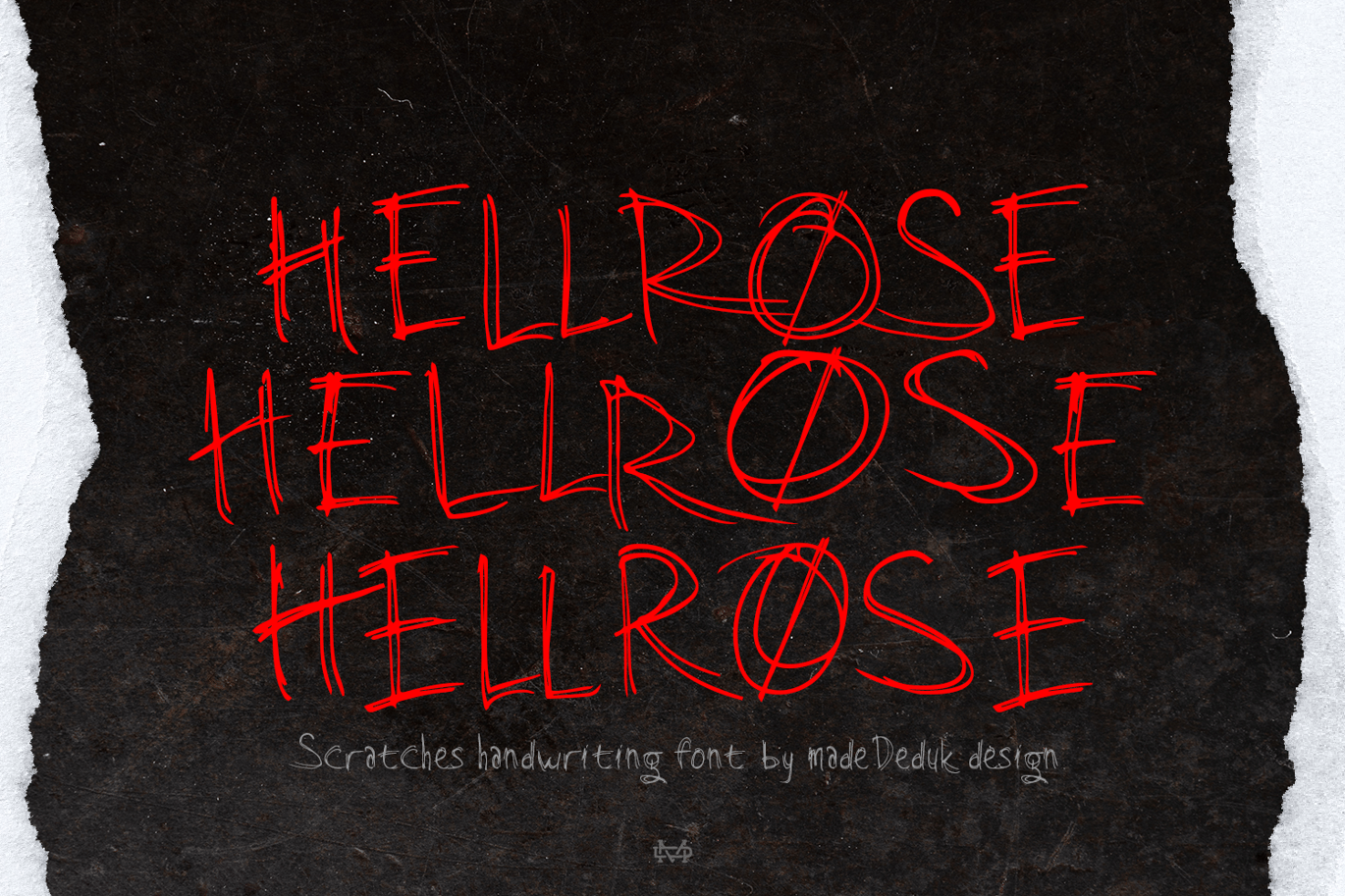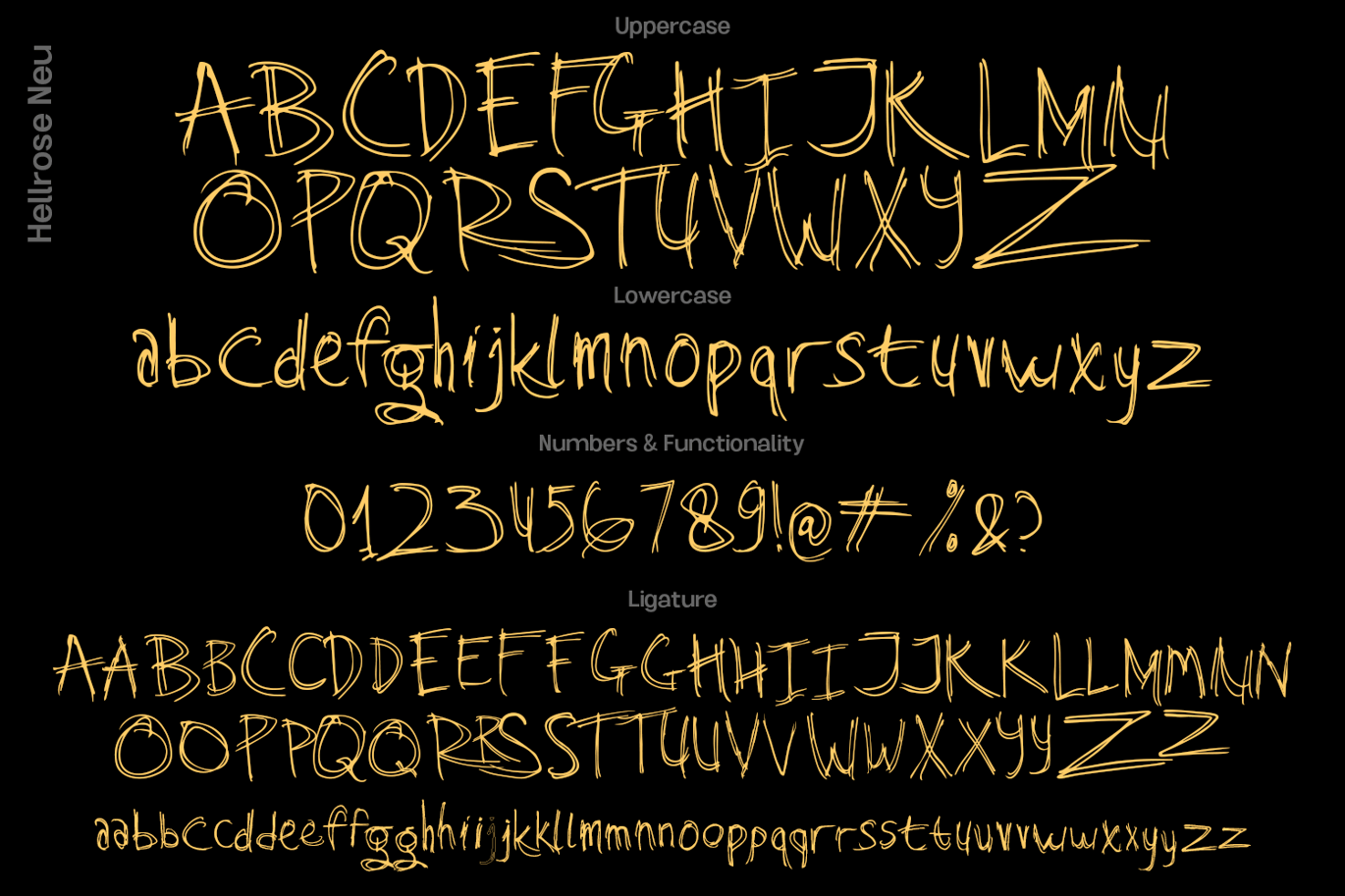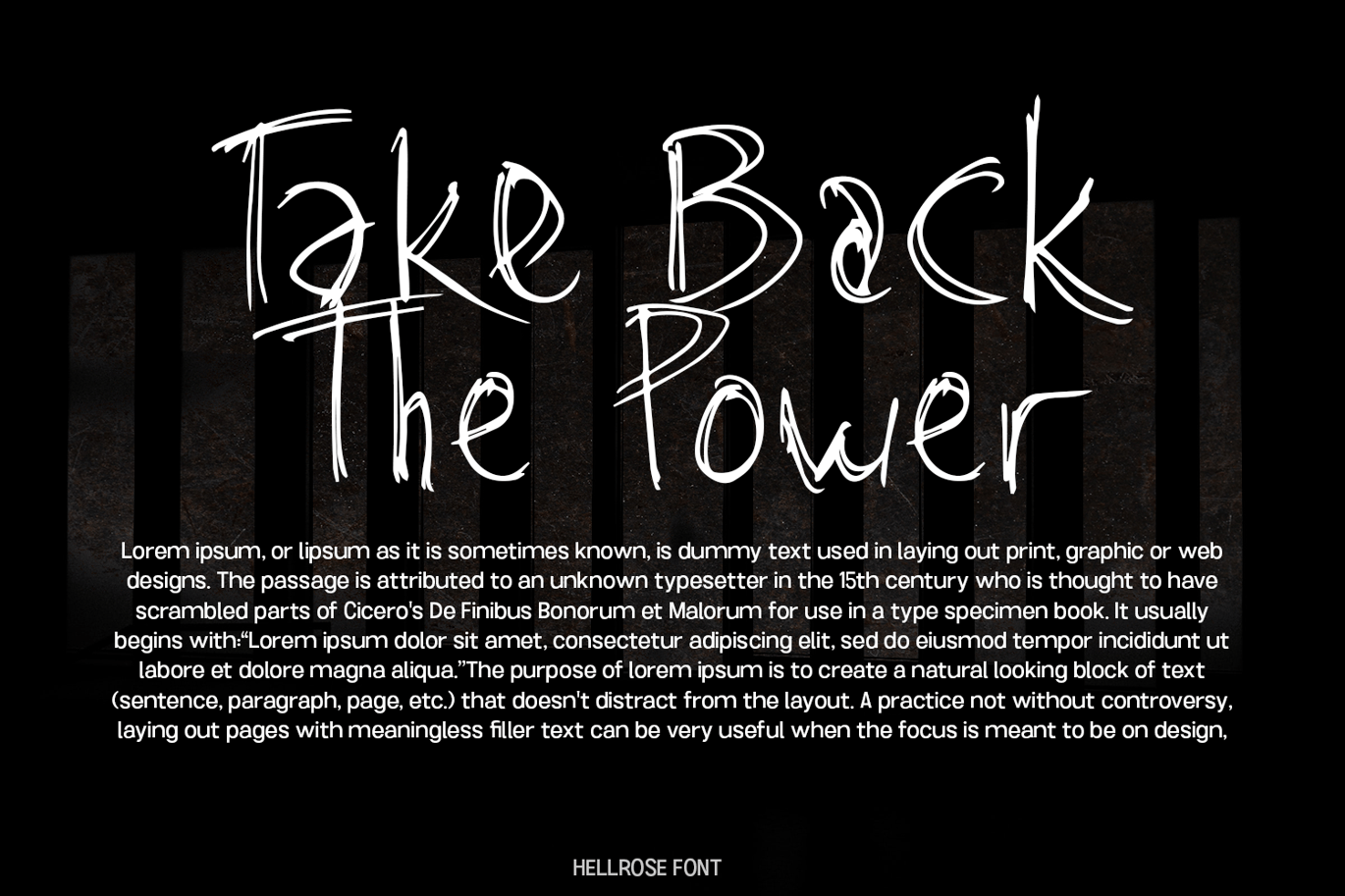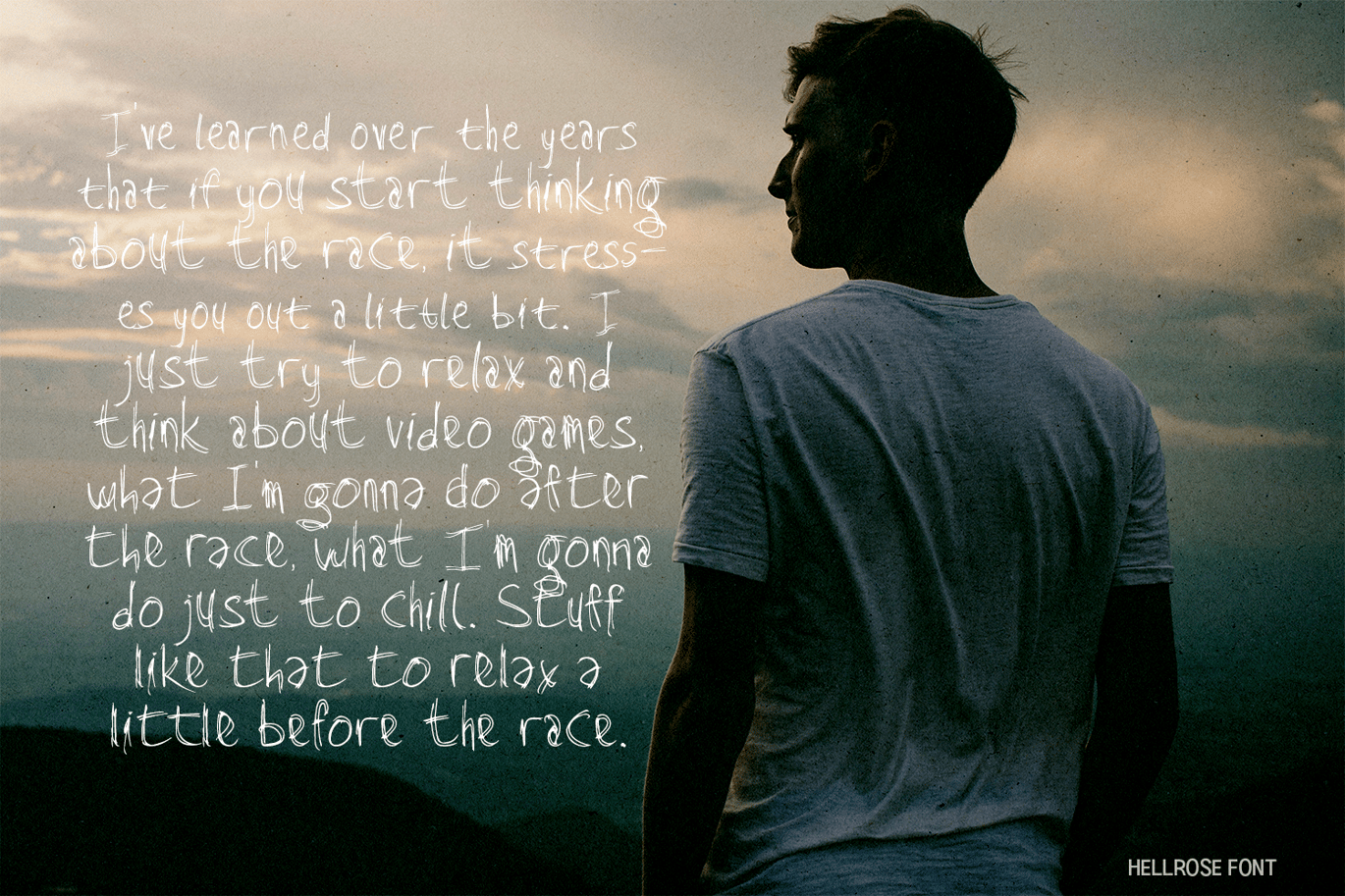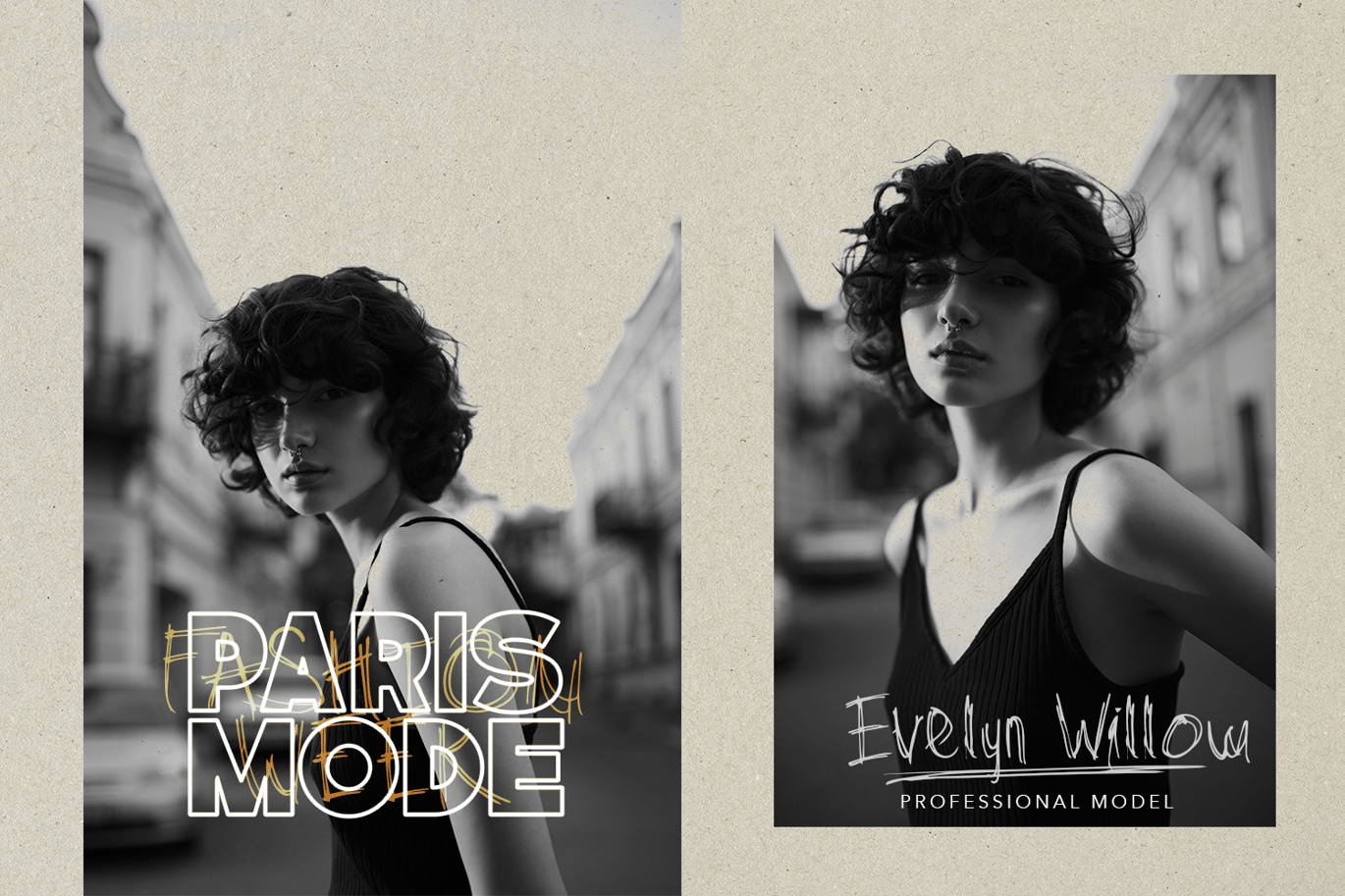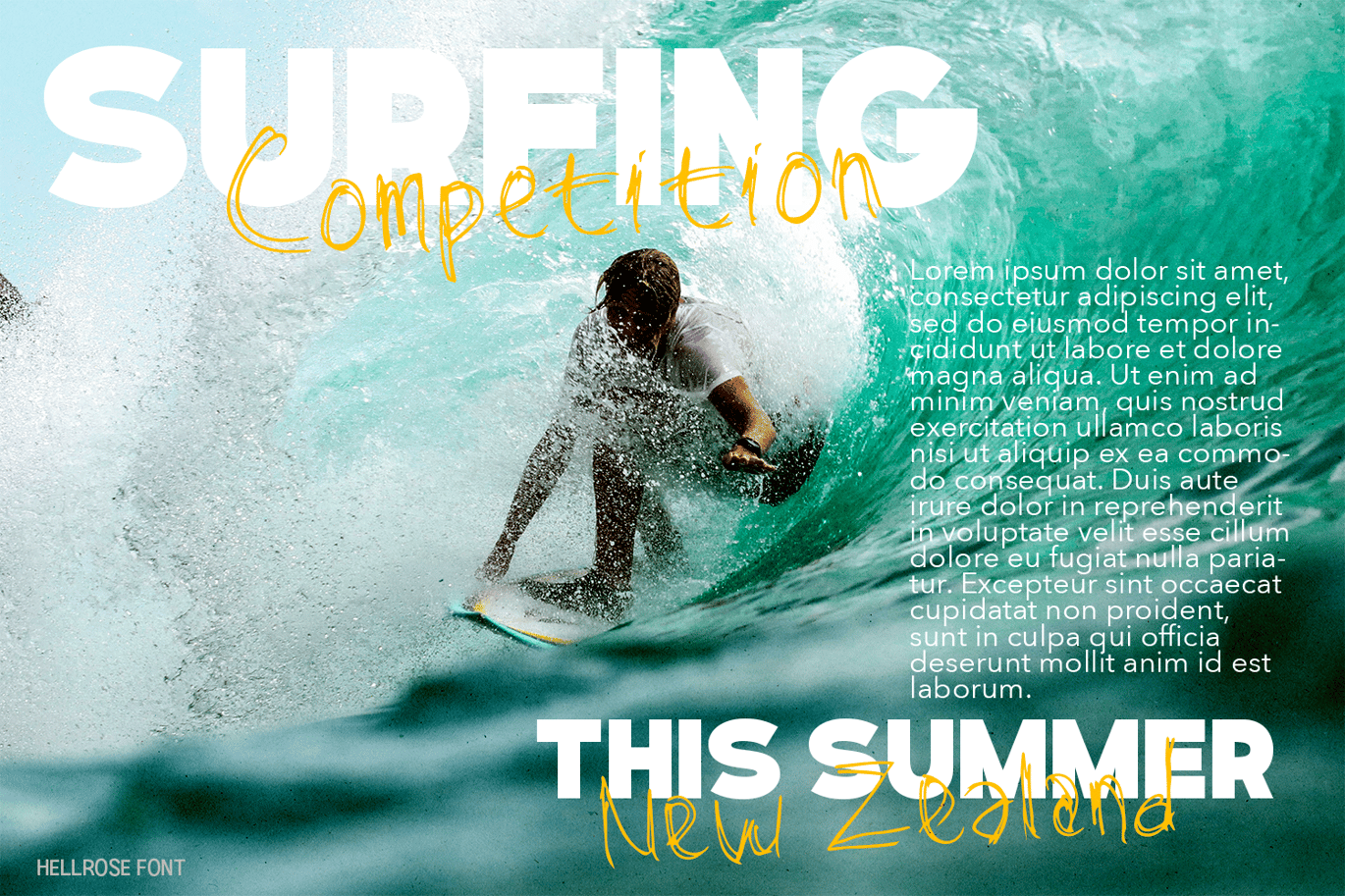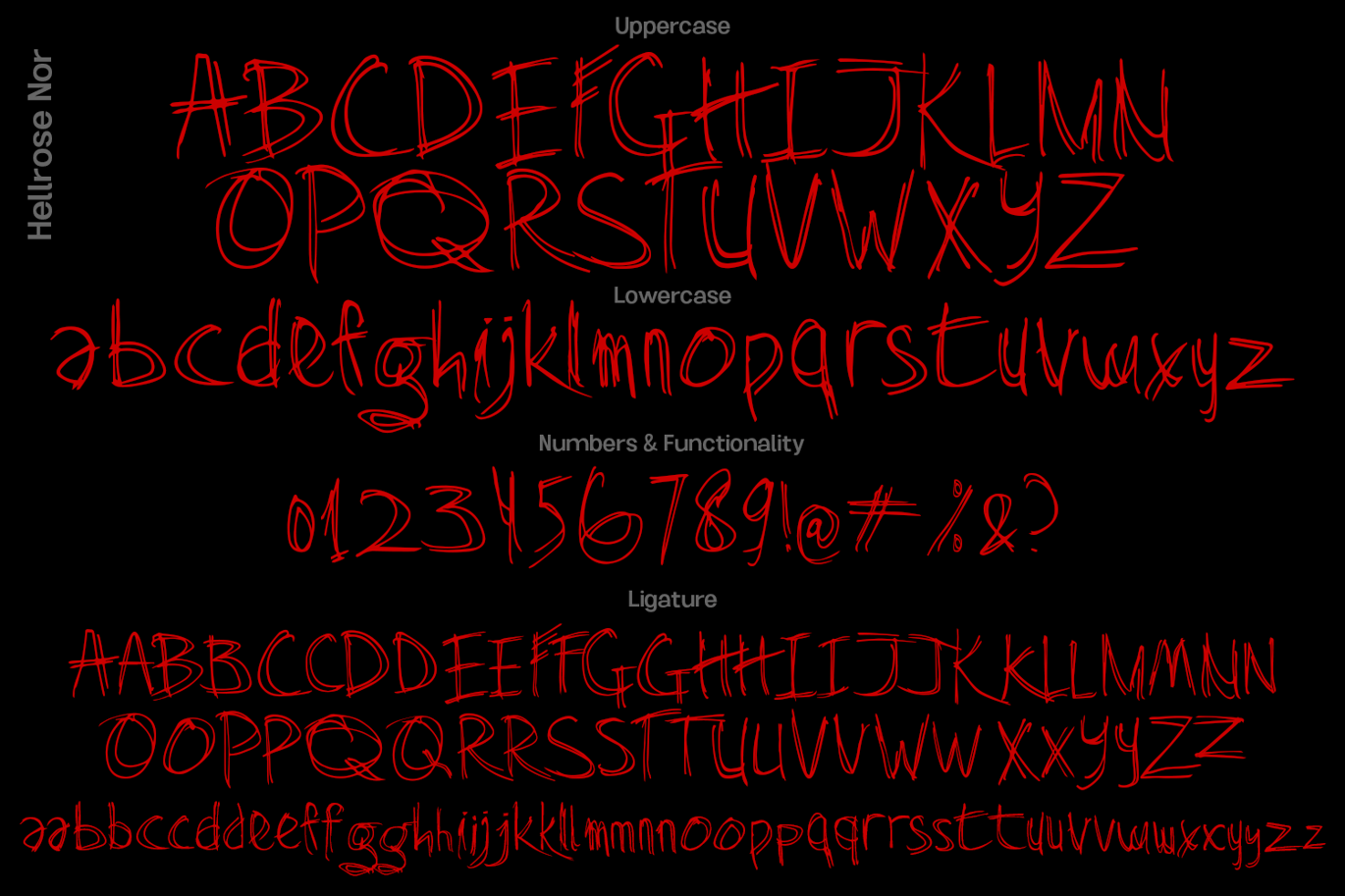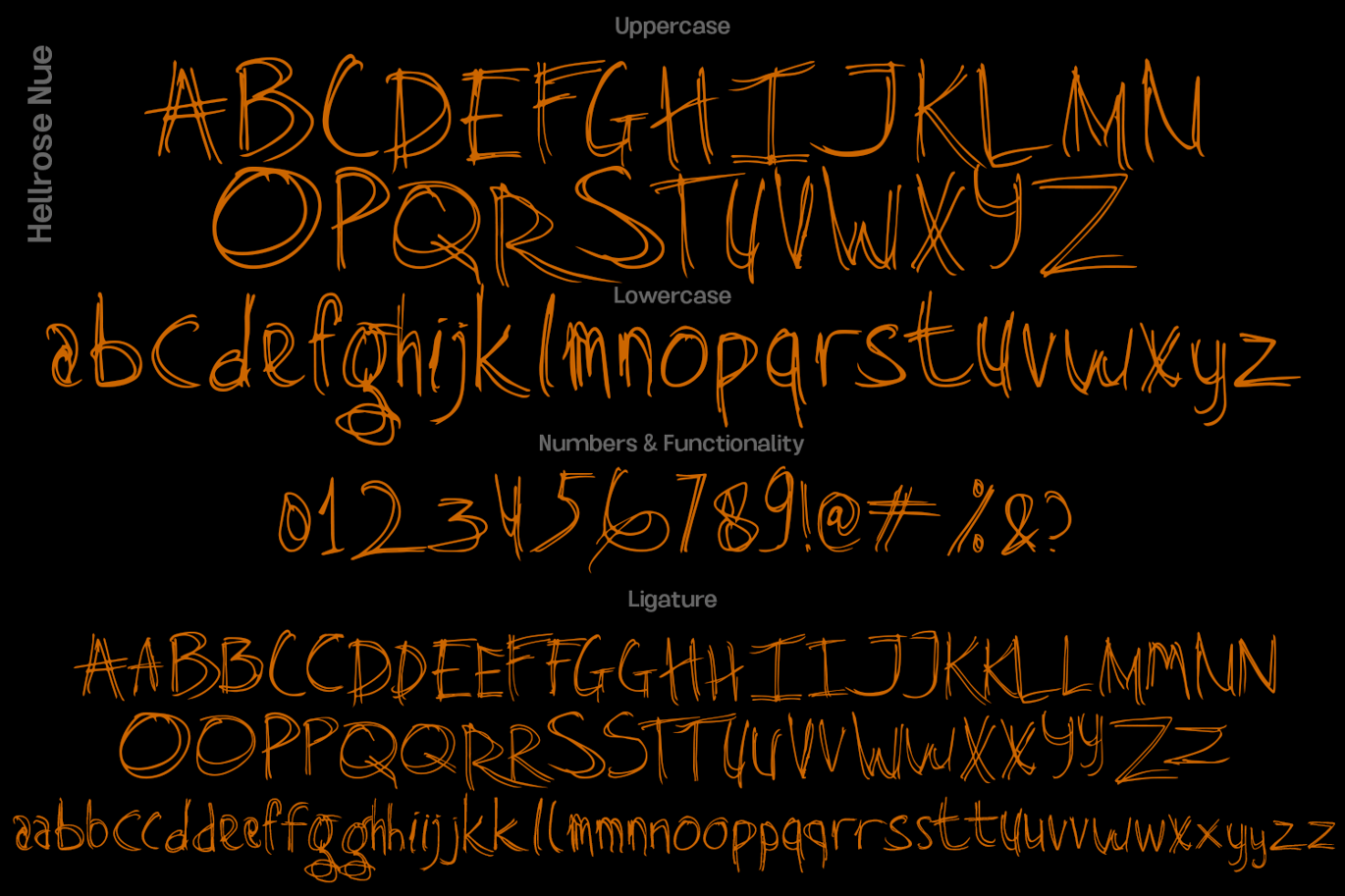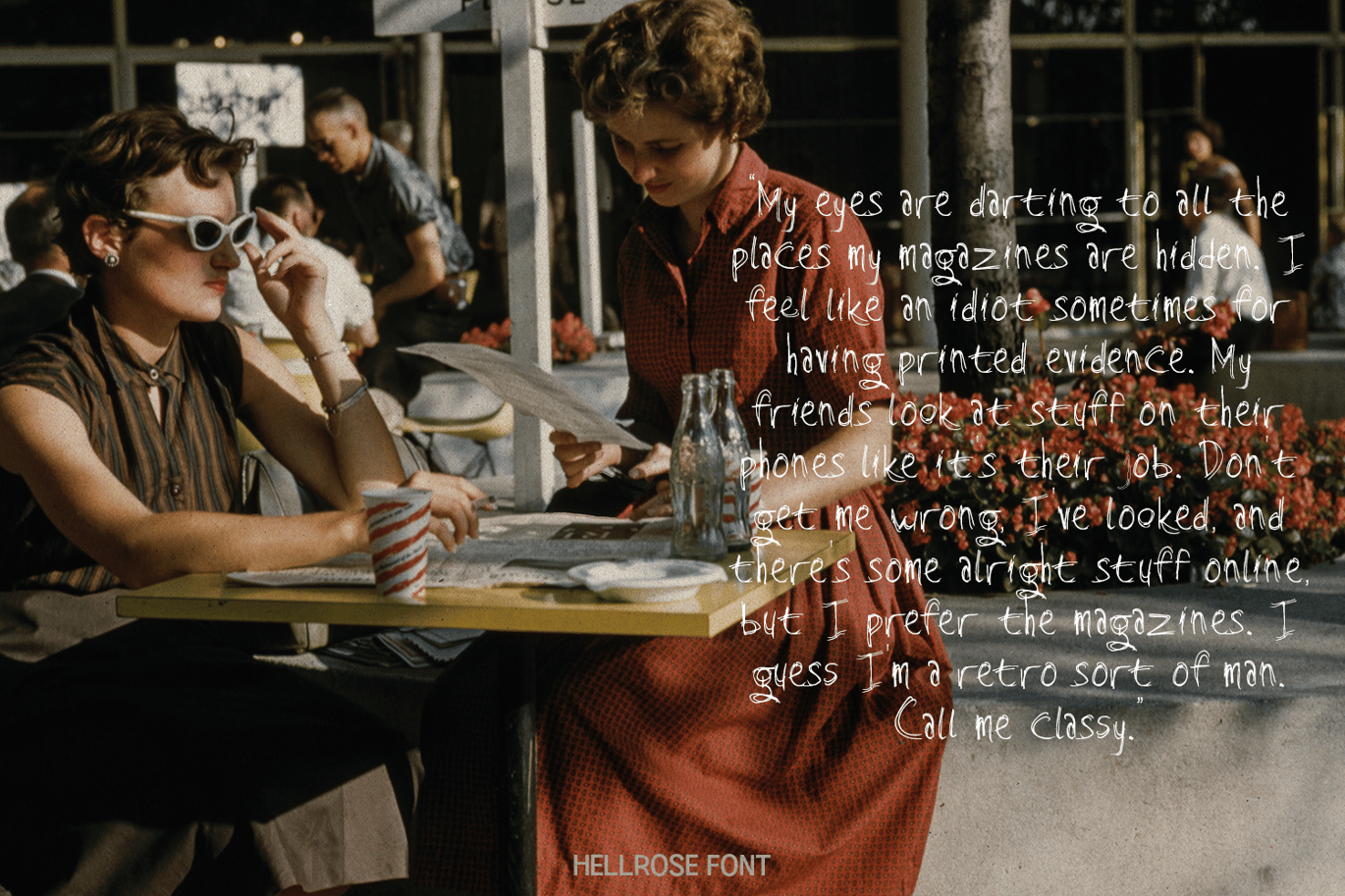
Hellrose Font
Hellrose is a scratches hand drawn font contains 50+ ligatures with three alternative. Hellrose is great for branding, posters, logos, invitation, writing and headings.